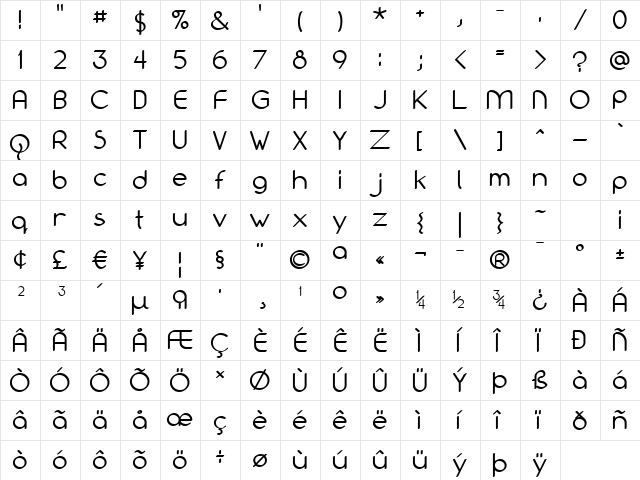
Bolonewt Regular
Design Context for Bolonewt Typeface
Bolonewt offers clean, dependable letterforms without strong stylistic allegiance, making it a practical choice for designers who need flexibility.
Pro Tip: Use Bolonewt in both headline and body roles to test its range before committing to a single application.